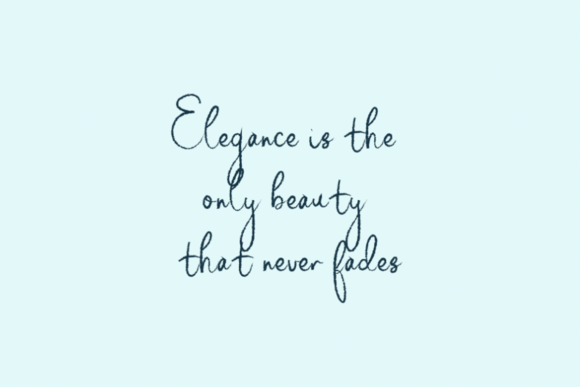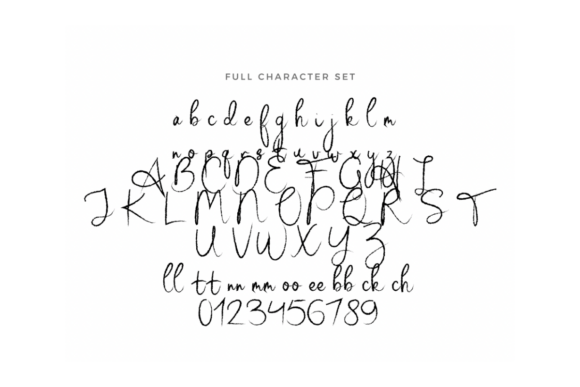
Introducing Elaina Font: Elevate Your Designs with Elegance and Uniqueness
In the world of typography, few fonts manage to capture the essence of elegance and uniqueness as effectively as Elaina Font. This signature-style script font is a masterpiece of hand-lettered artistry, designed to transform simple text into stunning, handwritten masterpieces. Whether you’re a designer, crafter, or simply someone who appreciates the beauty of typography, Elaina is poised to become your go-to choice for adding a touch of individuality and organic flair to your projects.
The Charm of Elaina Font
Elaina Font is more than just a collection of letters; it’s an expression of artistry and craftsmanship. Each character is meticulously hand-lettered, ensuring that every word and sentence flows with a natural, effortless grace. The font’s design is characterized by its elegant strokes, beautiful connections, and a subtle sense of movement, making it perfect for a wide range of applications, from wedding invitations and branding to packaging and digital media.
Why Choose Elaina Font?
There are countless reasons why Elaina Font stands out in the vast sea of typefaces available today. Here are a few key advantages that make Elaina an exceptional choice for designers and crafters:
- Elegance and Sophistication: Elaina brings an unparalleled level of elegance to any project. Its sophisticated appearance is ideal for designs that require a touch of luxury and refinement.
- Uniqueness: In a world where generic fonts are common, Elaina offers a breath of fresh air with its distinctive style. It ensures that your designs stand out and capture the attention of your audience.
- Versatility: Elaina is incredibly versatile, suitable for both digital and print projects. Whether you’re working on a website, social media graphics, or physical products, Elaina can adapt to any context with ease.
- Easy to Read: Despite its elegant and artistic nature, Elaina remains highly legible, making it a practical choice for body text as well as headings.
Applications of Elaina Font
The versatility of Elaina Font means it can be used in a multitude of design projects. Here are some popular applications where Elaina truly shines:
- Wedding and Event Design: Create beautiful wedding invitations, save the dates, and event banners that exude romance and sophistication.
- Branding and Logo Design: Use Elaina to craft unique logos and brand identities that reflect a sense of elegance and individuality.
- Packaging Design: Elevate your product packaging with Elaina, making your products stand out on store shelves and online.
- Digital Media: Incorporate Elaina into your website design, social media graphics, and email newsletters to add a personal touch and enhance user engagement.
Tips for Using Elaina Font Effectively
To maximize the impact of Elaina Font in your designs, consider the following tips:
- Pair with Complementary Fonts: Combine Elaina with simpler, sans-serif fonts for body text to create a balanced and harmonious design.
- Adjust Letter Spacing: Experiment with letter spacing to enhance readability and achieve the desired aesthetic effect.
- Utilize Font Weights: If available, use different font weights of Elaina to create visual hierarchy and add depth to your designs.
Elaina Font is a game-changer for designers and crafters looking to infuse their projects with elegance, uniqueness, and a personal touch. Its beautiful hand-lettered design, versatility, and ease of use make it an invaluable asset in the world of typography. Whether you’re aiming to create stunning wedding invitations, craft a distinctive brand identity, or simply add some flair to your digital media, Elaina is the perfect choice. Embrace the charm of Elaina Font and elevate your designs to new heights of creativity and sophistication.